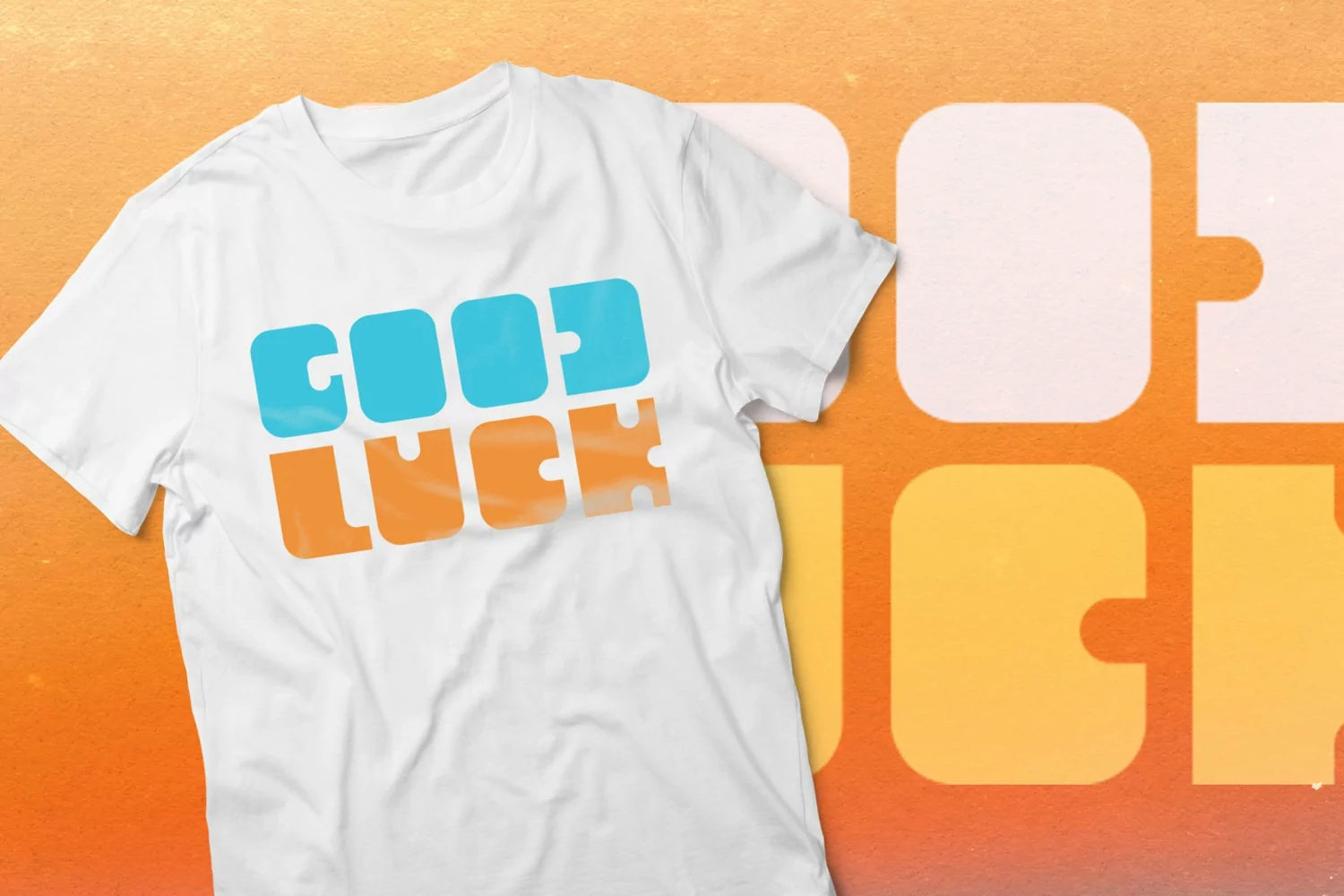
Gania is a display typeface. Perfect for display, poster, quotes, film, craft needs, book cover, business card, packaging, merchandise, branding, logo, logotype, header, title, and many more.